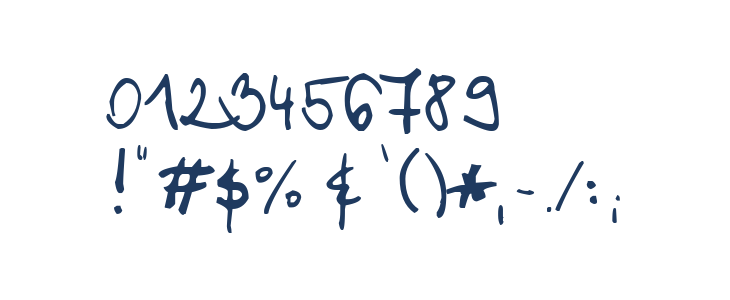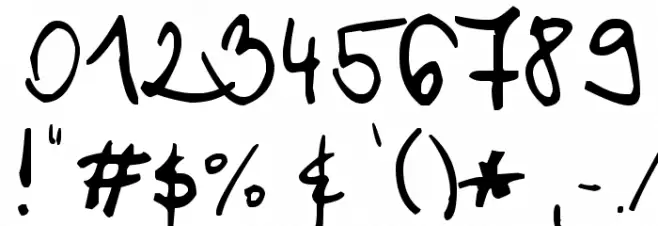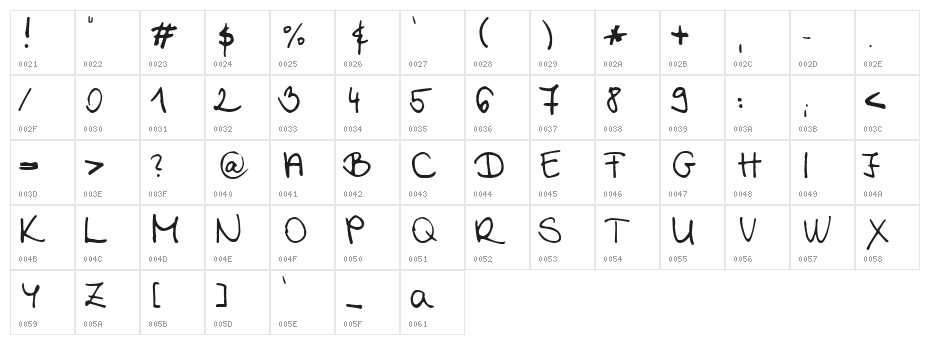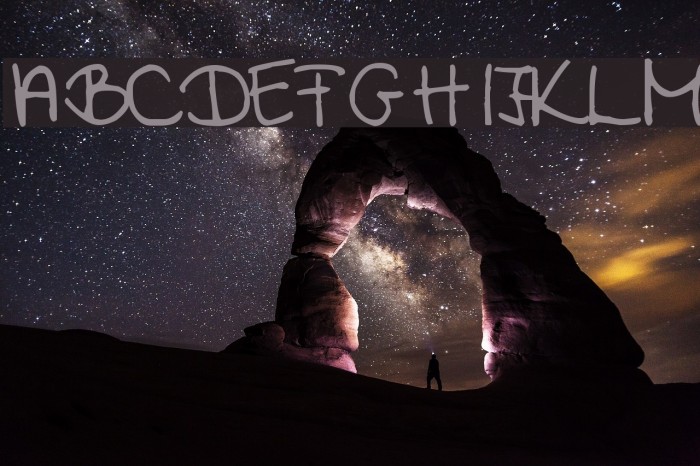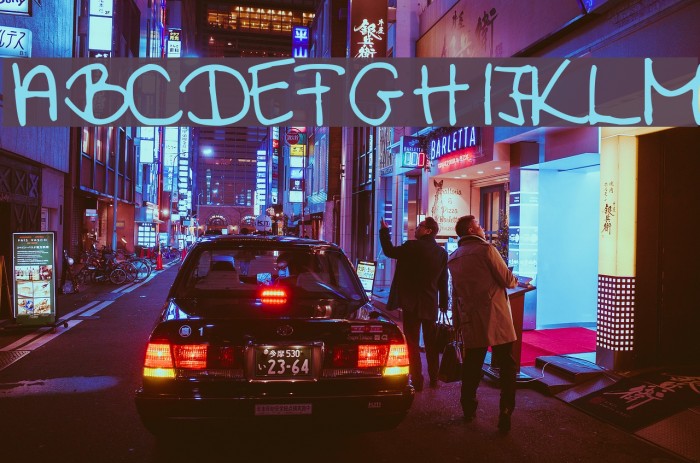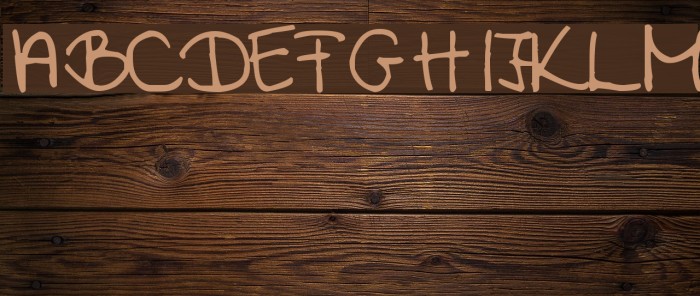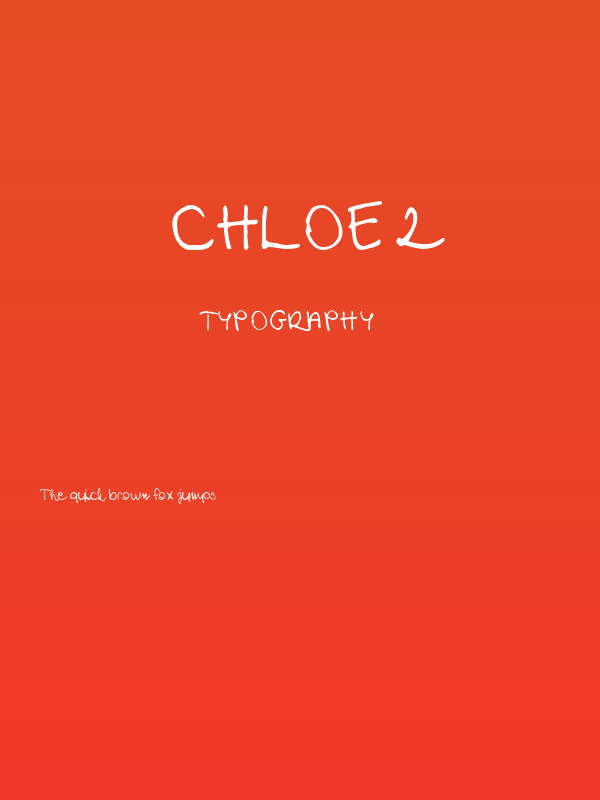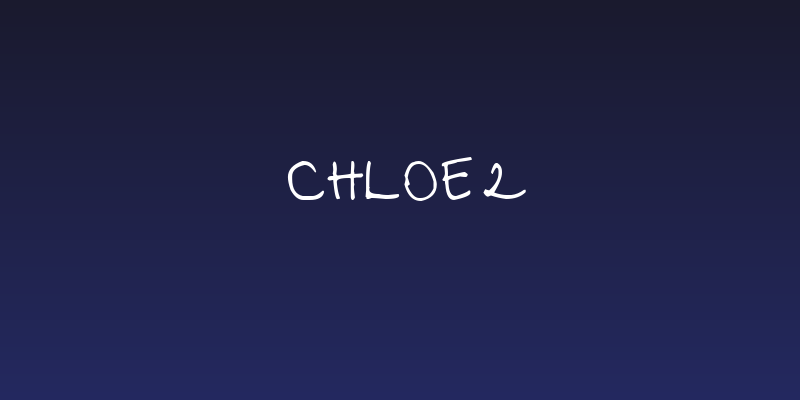
Chloe 2 Font
Chloe 2 Description
This font features a playful and informal handwritten style, characterized by its fluid and dynamic strokes. The uppercase letters are bold and slightly irregular, giving a sense of spontaneity and creativity. The lowercase letters maintain a consistent flow, with some letters like 'g' and 'y' having distinctive loops that add to the font's charm. The numbers are bold and easily readable, while the special characters retain the same playful aesthetic. Overall, this font exudes a casual and friendly vibe, making it suitable for projects that require a personal touch.
| Proposed Projects | Ideal for greeting cards, children's books, casual branding, and social media graphics. |